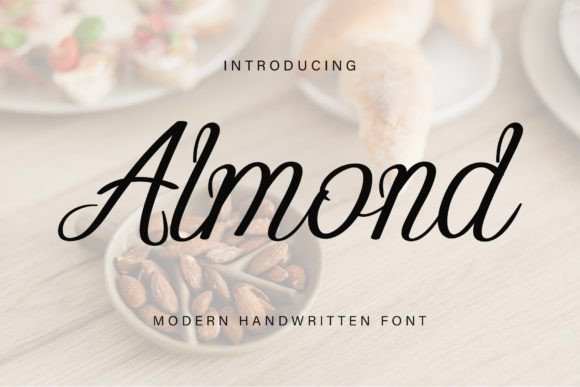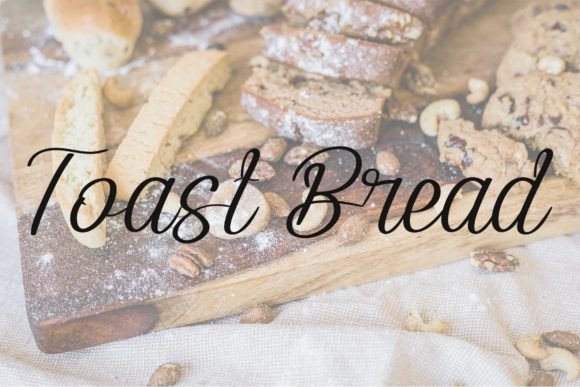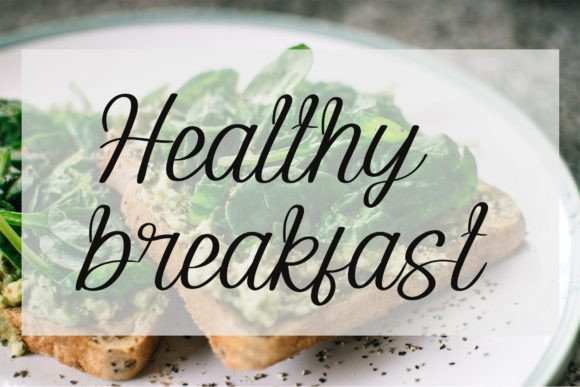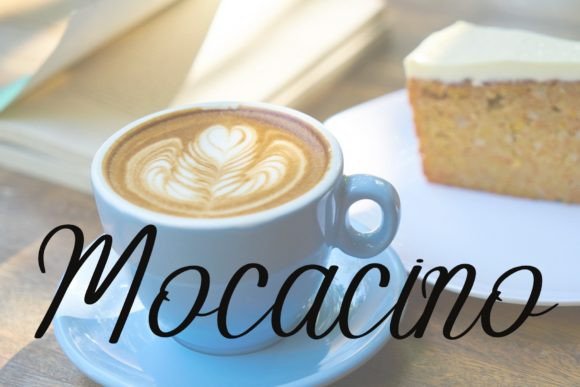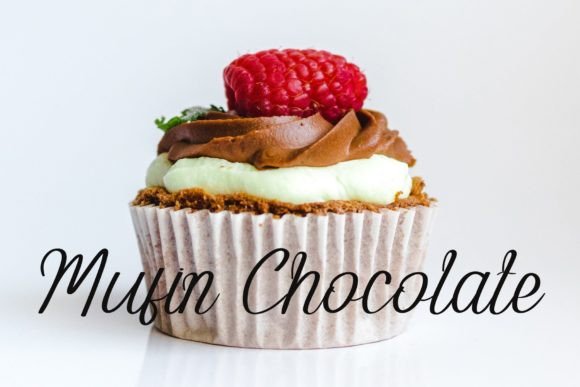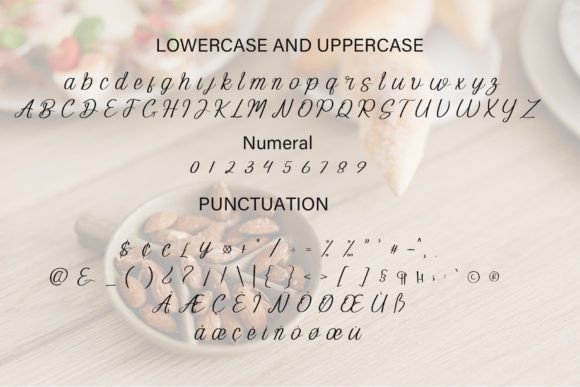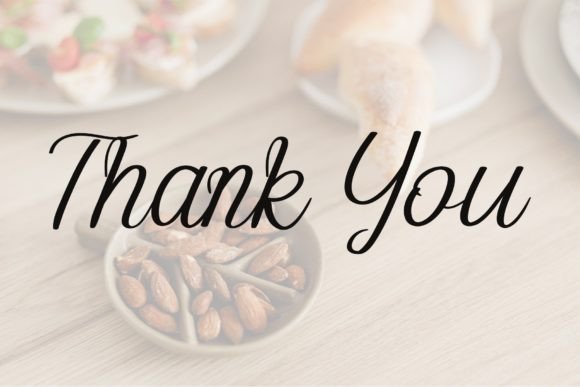
Almond Font
About Almond Font
Almond is a delightful and friendly handwritten font that infuses a sense of fun and charm into a wide array of design projects. Its playful and versatile nature makes it an ideal choice for transforming your creative ideas into standout designs. Let the unique charm of Almond inspire you as you create lovely and engaging designs.
The font’s friendly and approachable aesthetic lends itself well to various design applications. Whether you’re working on branding, social media graphics, posters, T-shirts, invitations, or any other project, Almond adds a lighthearted touch that captures attention and creates a positive and inviting atmosphere.
Almond’s handwritten style contributes to the creation of personalized and engaging designs. The playful characters and flowing strokes make it easy to infuse a sense of warmth and character into your messages, making them more relatable and appealing.
In the realm of branding, Almond stands out as a font that conveys approachability and creativity. Whether you’re designing a logo, business cards, or promotional materials, Almond’s fun and friendly demeanor add a distinctive flair to your brand identity, making it memorable and relatable.
Almond’s versatility extends to various design contexts, making it an excellent choice for turning ordinary ideas into extraordinary designs. Its adaptability allows it to complement different visual styles and themes, giving you the flexibility to explore and experiment with your creative concepts.
In summary, Almond is more than just a font; it’s a creative tool that brings joy and friendliness to your projects. Whether you’re creating branding elements, social media graphics, or any other design requiring a playful touch, Almond’s fun and friendly handwritten style will help your ideas stand out and leave a lasting impression.